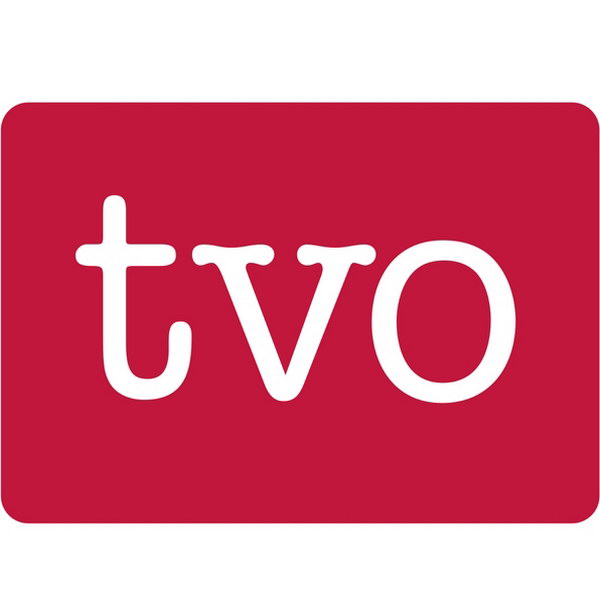
TVO Font
Fonts in UseTVO, or TVOntario, is a Canadian public educational television network that provides educational programming for children and adults, including documentaries, dramas, and current affairs programs.